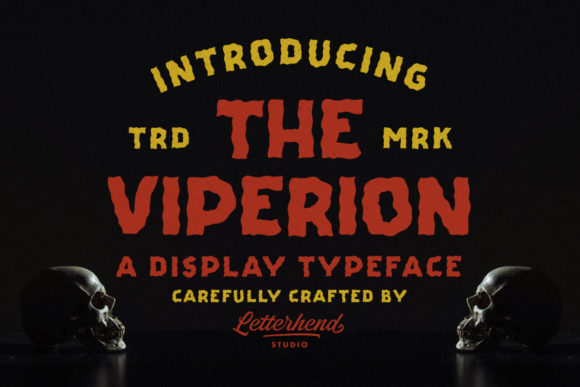
**Introducing The Viperion Font: The Ultimate Display Font for Bewitching Creations**
Unleash the captivating power of The Viperion Font, a bewitching display font crafted to elevate your designs to the realm of the extraordinary. Bold, spooky, and oozing with character, this unique lettered font holds the key to unlocking designs that will haunt the minds of your audience.
Imagine your words leaping off the page, each letter a mesmerizing dance that captivates the senses. The Viperion Font possesses an otherworldly charm that transforms ordinary text into an enchanting visual spectacle. Whether you're crafting movie posters, designing eye-catching brochures, or conjuring up spellbinding social media posts, The Viperion Font will cast its magic, leaving an unforgettable impression on all who behold it.
Its versatility knows no bounds, as The Viperion Font seamlessly adapts to a myriad of design concepts. From the haunting allure of Halloween-themed creations to the spine-tingling atmosphere of horror movie posters, this captivating font will add a touch of enchantment to any project. It's the perfect choice for designers seeking to evoke emotions, create unforgettable experiences, and leave a lasting impact on their audience.
**Why Choose The Viperion Font?**
* **Bold and Spooky:** Captivate your audience with the font's striking presence and haunting charm.
* **Beguiling Versatility:** Seamlessly adapt to diverse design concepts, from Halloween-themed creations to eerie movie posters.
* **Enthralling Visuals:** Transform ordinary text into mesmerizing visual spectacles that will linger in the minds of your viewers.
* **Emotional Impact:** Evoke a range of emotions, from curiosity and intrigue to spine-tingling fear.
* **Unforgettable Designs:** Create designs that leave a lasting impression, haunting the memories of your audience long after they've turned the page.